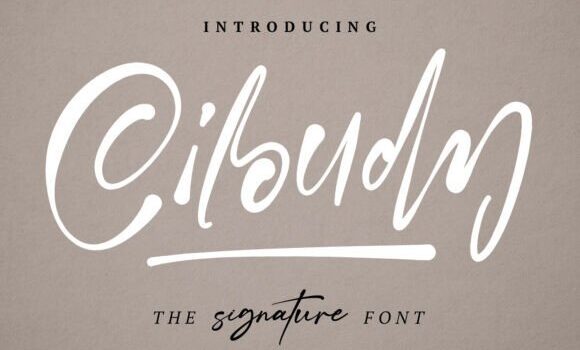
ciloudy
Ciloudy Font – Free Download Introduction to Ciloudy Font Give your designs an authentic brush handcrafted feel. 📸 Preview Gallery 5 images 📌 Product Name Ciloudy Font 👤 Author Maulana Creative 📂 Category Explore ⬇️ Download Ciloudy Font FREE Free